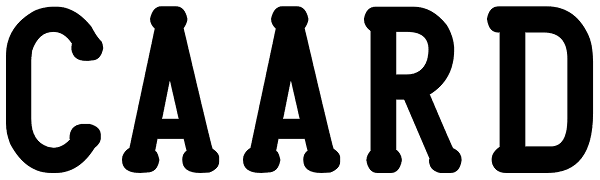
Caard
The font to use for emulating credit card imprints. Caard emulates the small imprint text found on many credit cards. (Emboss effect not included.) There are two numeric styles on a typical credit card, so there are two versions of this font. Caard...
Caard Large Numbers
Caard